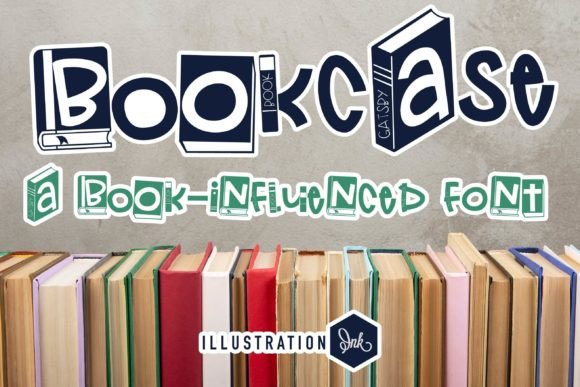
Introducing Bookcase Font: The Ultimate Display Font for Book Lovers
Are you a bookworm, a designer, or a crafty person looking for a unique font to add a touch of personality to your projects? Look no further than Bookcase Font, a fun sans serif display font that’s perfect for anyone who loves books. In this article, we’ll dive into the features and benefits of Bookcase Font, and explore how you can use it to take your designs to the next level.
What is Bookcase Font?
Bookcase Font is a sans serif display font that’s designed to resemble a bookcase, complete with letters on books and a few book spines as letter pieces. This creative and playful font is perfect for a wide range of projects, from digital designs and presentations to crafts and greeting cards. Whether you’re a student, a teacher, a designer, or simply a book lover, Bookcase Font is sure to delight.
Key Features of Bookcase Font
So what makes Bookcase Font so special? Here are just a few of its key features:
- Unique lettering style: Bookcase Font features a one-of-a-kind lettering style that looks like letters on books and book spines. This gives your designs a playful and eye-catching touch.
- Sans serif design: The font has a clean and modern sans serif design that’s easy to read and perfect for digital and print projects.
- Multipurpose: Bookcase Font is versatile and can be used for a wide range of projects, from crafts and greeting cards to digital designs and presentations.
- Fun and playful: This font is perfect for anyone who loves books and wants to add a touch of whimsy to their designs.
How to Use Bookcase Font
Bookcase Font is incredibly easy to use, and can be incorporated into a wide range of projects. Here are just a few ideas to get you started:
Idea #1: Crafts
Bookcase Font is perfect for crafty projects like scrapbooking, card making, and DIY signs. Use it to add a personal touch to your crafts and make them stand out.
Idea #2: Digital Design
Bookcase Font is also great for digital designs like social media graphics, blog posts, and presentations. Use it to add a touch of personality to your digital content and make it more engaging.
Idea #3: Greeting Cards
If you’re a book lover, you’ll love using Bookcase Font to create greeting cards for friends and family. Use it to make custom birthday cards, get well cards, and more.
Idea #4: Presentations
Bookcase Font is also perfect for presentations, especially if you’re a teacher or student. Use it to add a touch of personality to your slides and make your presentations more engaging.
Benefits of Using Bookcase Font
So why should you choose Bookcase Font for your next project? Here are just a few benefits of using this unique and playful font:
- Adds personality: Bookcase Font adds a touch of personality to your designs, making them more engaging and eye-catching.
- Versatile: This font can be used for a wide range of projects, from crafts and greeting cards to digital designs and presentations.
- Easy to read: Despite its playful design, Bookcase Font is easy to read and perfect for digital and print projects.
- Unique: Bookcase Font is a one-of-a-kind font that’s sure to make your designs stand out.
Tips for Using Bookcase Font
Here are a few tips for getting the most out of Bookcase Font:
- Use it sparingly: While Bookcase Font is playful and fun, it can be overwhelming if used too much. Use it sparingly to add a touch of personality to your designs.
- Pair it with other fonts: Bookcase Font pairs well with other fonts, especially sans serif fonts. Experiment with different font combinations to find the perfect look for your project.
- Experiment with colors: Bookcase Font looks great in a variety of colors, from bright and bold to muted and pastel. Experiment with different colors to find the perfect look for your project.
| Font Name | Bookcase Font |
| Author | Illustration Ink |
Bookcase Font is a unique and playful font that’s perfect for book lovers, designers, and crafty people. With its sans serif design, multipurpose versatility, and fun lettering style, this font is sure to become your go-to font for a wide range of projects. Whether you’re making crafts, digital designs, presentations, or greeting cards, Bookcase Font is the perfect choice. So why wait? Download Bookcase Font today and start adding a touch of personality to your designs!